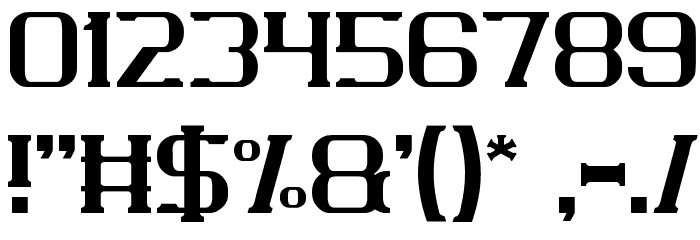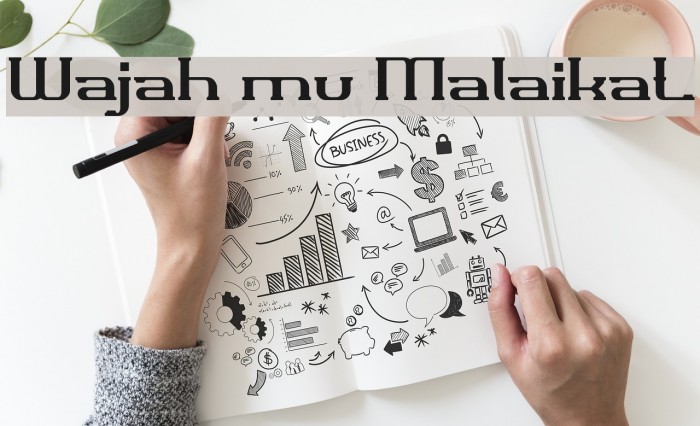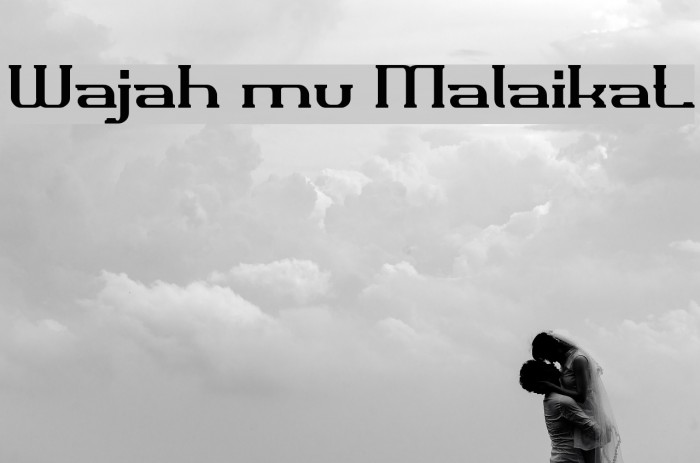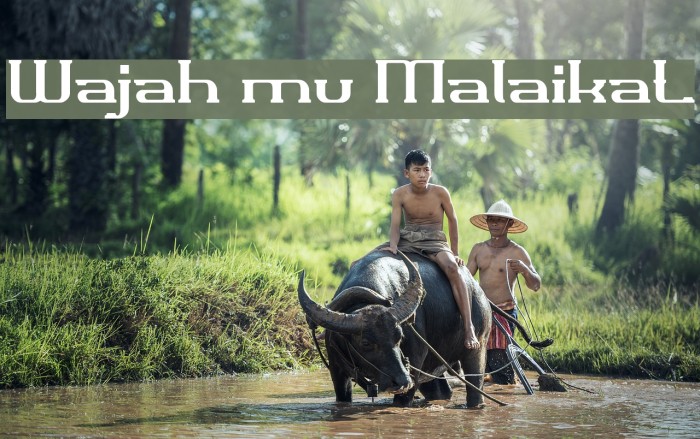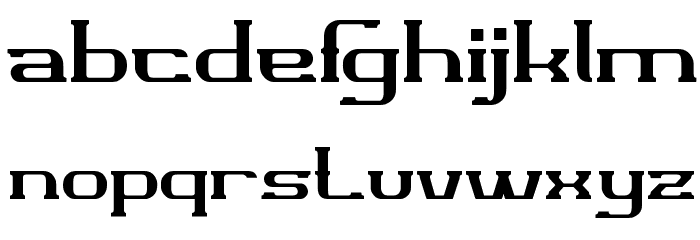
Wajah mu Malaikat Font
Wajah mu Malaikat Description
This font features a unique blend of modern and vintage elements, characterized by its bold, geometric shapes and distinct serifs. The uppercase letters are tall and commanding, with a slight curvature that adds a touch of elegance. The lowercase letters maintain a consistent height, offering a balanced and cohesive look. Numbers are clear and easily distinguishable, making them suitable for various applications. Special characters are designed with the same attention to detail, ensuring they complement the overall aesthetic. The font's structure is robust, making it ideal for impactful headlines and titles.
A bold, geometric serif font with a modern vintage flair from Uncategorized fonts.
- Proposed Projects: Ideal for branding, poster design, and editorial headlines.
- Overall Style: Modern Vintage